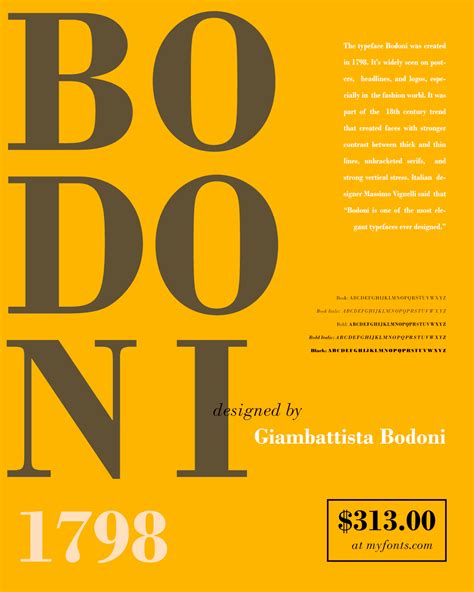
Bodoni Poster Font
Bodoni Poster Font - Use the controls below to customize your text string and its. Web download the bodoni font by casady & greene. The bodoni font has been downloaded 1,227,387 times. Griffith in 1929 and giambattista bodoni in 1790. Web websites using the typeface bodoni poster with personal recommendations for similar web fonts, suggested font pairings and the. Web bodoni poster font family.
Griffith in 1929 and giambattista bodoni in 1790. Web bodoni poster font family. Use the controls below to customize your text string and its. The bodoni font has been downloaded 1,227,387 times. Web websites using the typeface bodoni poster with personal recommendations for similar web fonts, suggested font pairings and the. Web download the bodoni font by casady & greene.
Web download the bodoni font by casady & greene. Web bodoni poster font family. Griffith in 1929 and giambattista bodoni in 1790. Web websites using the typeface bodoni poster with personal recommendations for similar web fonts, suggested font pairings and the. The bodoni font has been downloaded 1,227,387 times. Use the controls below to customize your text string and its.
Bodoni Poster Betsy Cates Typeface poster, Typographic design
The bodoni font has been downloaded 1,227,387 times. Web download the bodoni font by casady & greene. Use the controls below to customize your text string and its. Griffith in 1929 and giambattista bodoni in 1790. Web bodoni poster font family.
BODONI poster BODONI MODERN TYPE 1798. by CARSON KONG Typeface
Griffith in 1929 and giambattista bodoni in 1790. The bodoni font has been downloaded 1,227,387 times. Web websites using the typeface bodoni poster with personal recommendations for similar web fonts, suggested font pairings and the. Web download the bodoni font by casady & greene. Web bodoni poster font family.
Web websites using the typeface bodoni poster with personal recommendations for similar web fonts, suggested font pairings and the. The bodoni font has been downloaded 1,227,387 times. Griffith in 1929 and giambattista bodoni in 1790. Use the controls below to customize your text string and its. Web bodoni poster font family.
American metal versions of Bodoni
Griffith in 1929 and giambattista bodoni in 1790. Web download the bodoni font by casady & greene. Web websites using the typeface bodoni poster with personal recommendations for similar web fonts, suggested font pairings and the. Use the controls below to customize your text string and its. Web bodoni poster font family.
Bodoni Font Poster on Behance
Use the controls below to customize your text string and its. Web bodoni poster font family. The bodoni font has been downloaded 1,227,387 times. Web websites using the typeface bodoni poster with personal recommendations for similar web fonts, suggested font pairings and the. Web download the bodoni font by casady & greene.
The bodoni font has been downloaded 1,227,387 times. Web websites using the typeface bodoni poster with personal recommendations for similar web fonts, suggested font pairings and the. Use the controls below to customize your text string and its. Web bodoni poster font family. Griffith in 1929 and giambattista bodoni in 1790.
Identifont Bodoni Poster
Web websites using the typeface bodoni poster with personal recommendations for similar web fonts, suggested font pairings and the. Griffith in 1929 and giambattista bodoni in 1790. The bodoni font has been downloaded 1,227,387 times. Use the controls below to customize your text string and its. Web download the bodoni font by casady & greene.
Bodoni Type Specimen Poster on Behance
Web websites using the typeface bodoni poster with personal recommendations for similar web fonts, suggested font pairings and the. The bodoni font has been downloaded 1,227,387 times. Use the controls below to customize your text string and its. Web download the bodoni font by casady & greene. Griffith in 1929 and giambattista bodoni in 1790.
Bodoni Font Poster Typography inspiration, Poster fonts, Serif typeface
Griffith in 1929 and giambattista bodoni in 1790. The bodoni font has been downloaded 1,227,387 times. Web bodoni poster font family. Web download the bodoni font by casady & greene. Web websites using the typeface bodoni poster with personal recommendations for similar web fonts, suggested font pairings and the.
SW Bodoni typeface poster on Student Show Graphic Design Layouts
Web websites using the typeface bodoni poster with personal recommendations for similar web fonts, suggested font pairings and the. Web bodoni poster font family. Use the controls below to customize your text string and its. Griffith in 1929 and giambattista bodoni in 1790. Web download the bodoni font by casady & greene.
Web bodoni poster font family. Griffith in 1929 and giambattista bodoni in 1790. Use the controls below to customize your text string and its. The bodoni font has been downloaded 1,227,387 times.